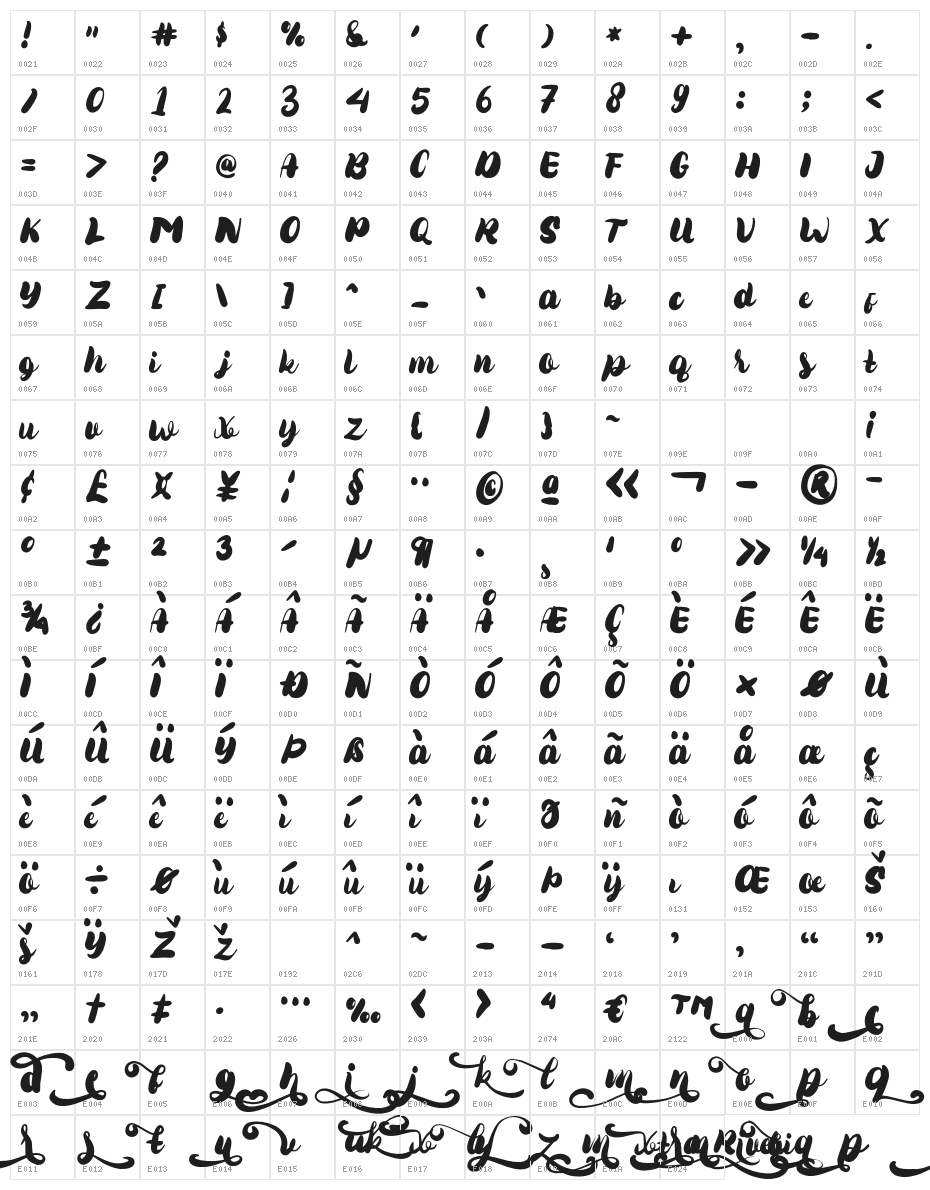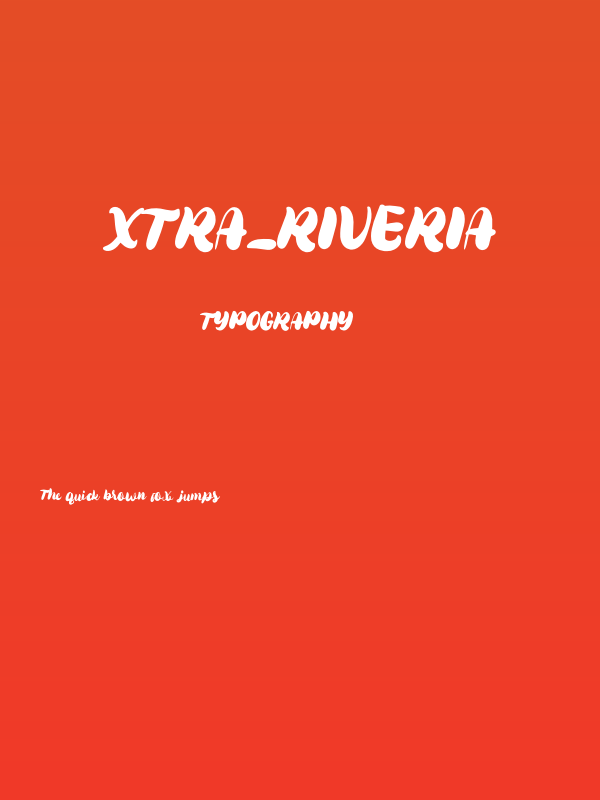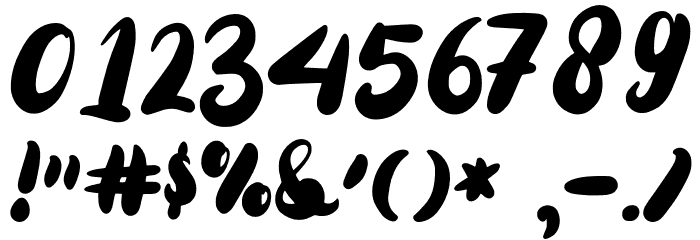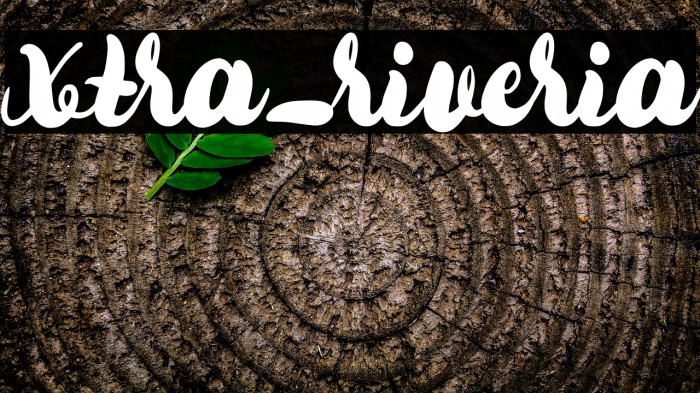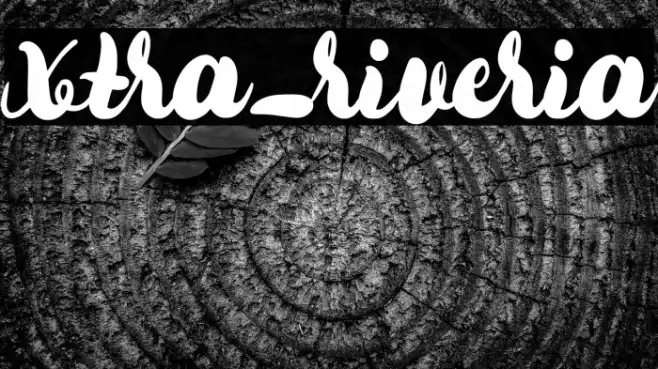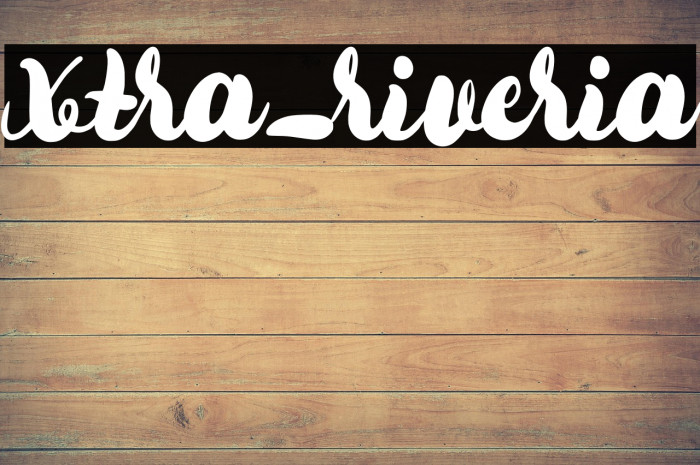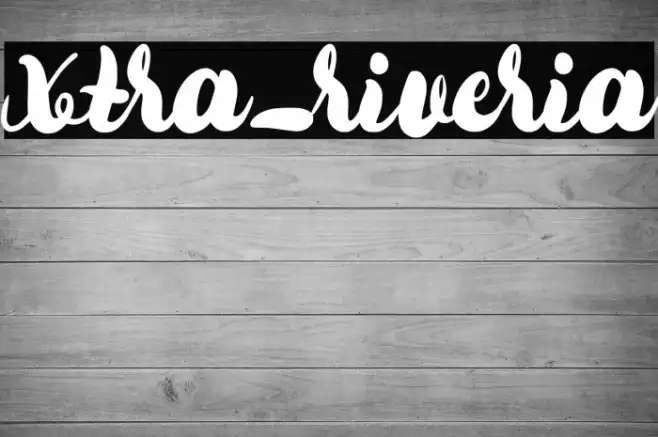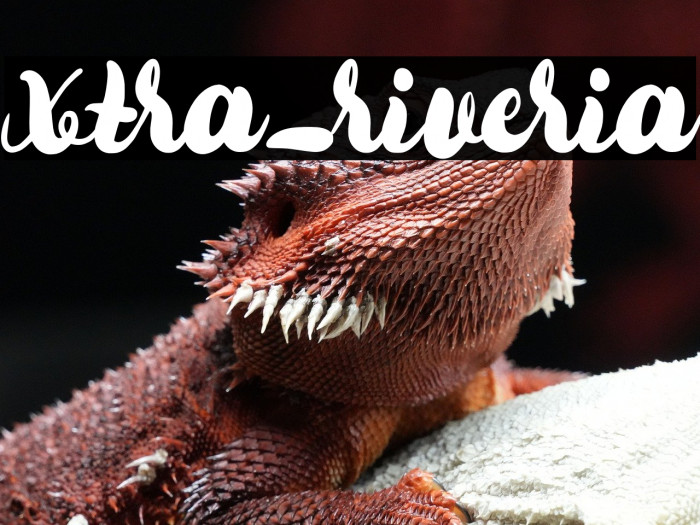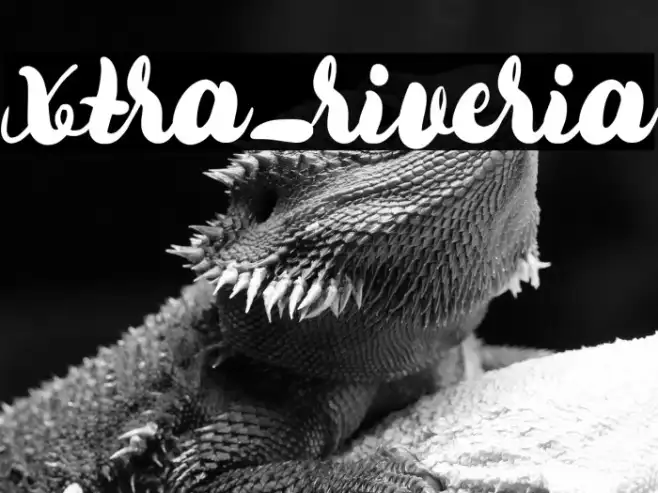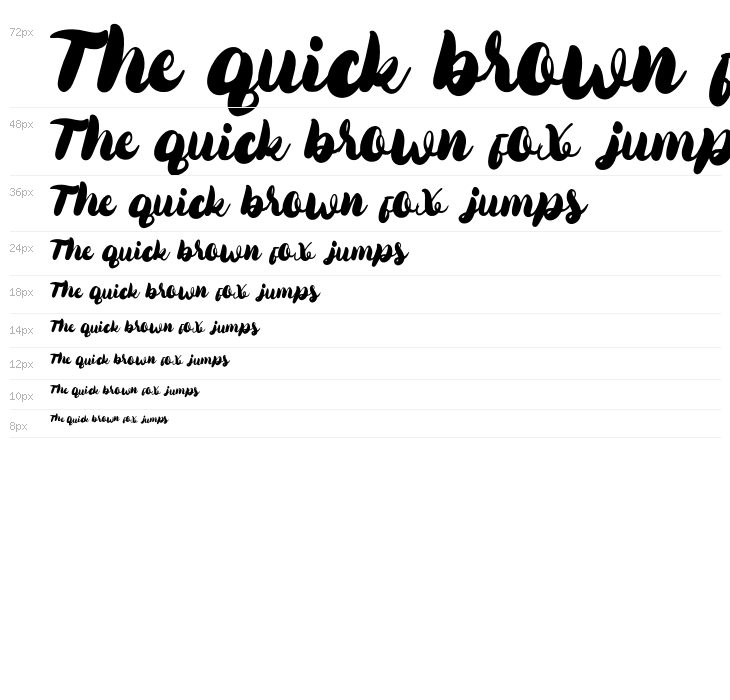
xtra_riveria Font
xtra_riveria Description
This font features a bold and expressive script style, characterized by its flowing, cursive letterforms. The uppercase letters are robust and dynamic, with a playful yet elegant appearance. The lowercase letters maintain a consistent fluidity, enhancing the overall cohesive look. Numbers and special characters are crafted with the same boldness, ensuring readability and style. The font's thick strokes and smooth curves give it a lively and energetic feel, making it suitable for creative and artistic projects. Its unique style can add a personal touch to any design, making it stand out.
| Use Case | Logos, Headlines, Artistic designs |
| Proposed Projects | Ideal for branding, invitations, greeting cards, and creative posters. |